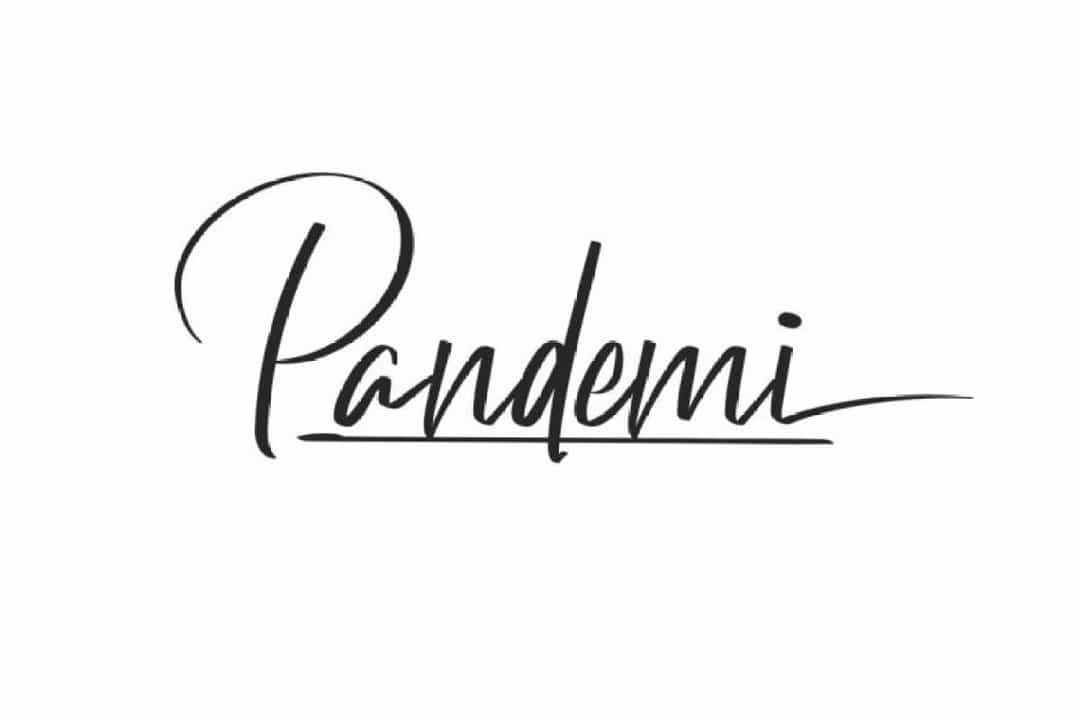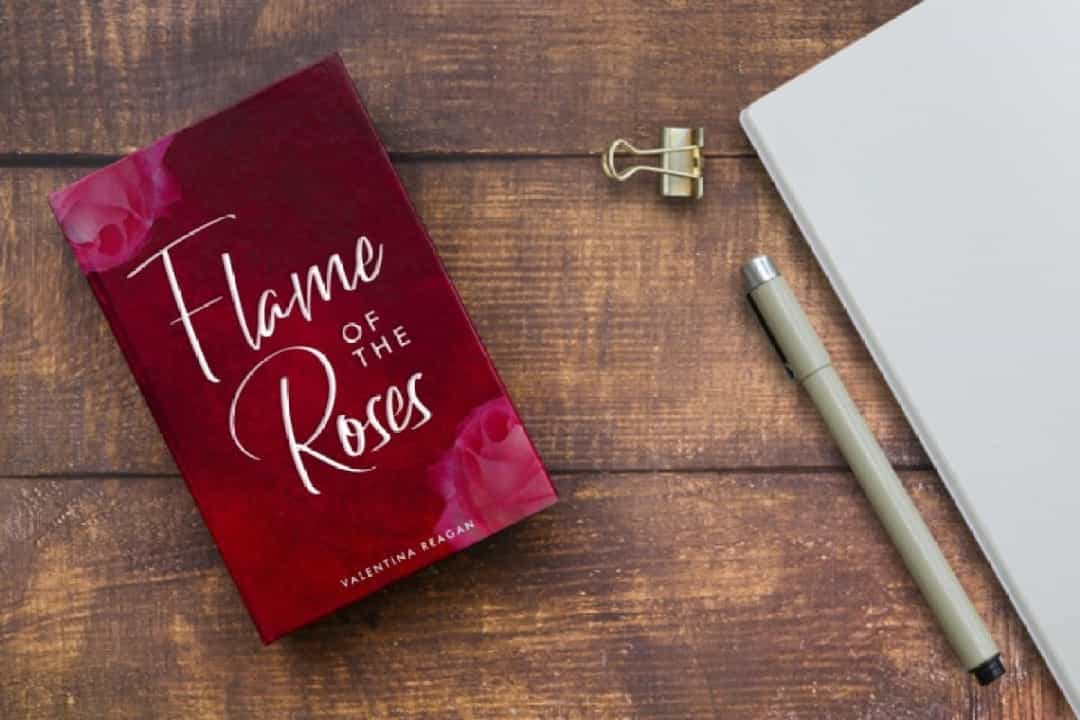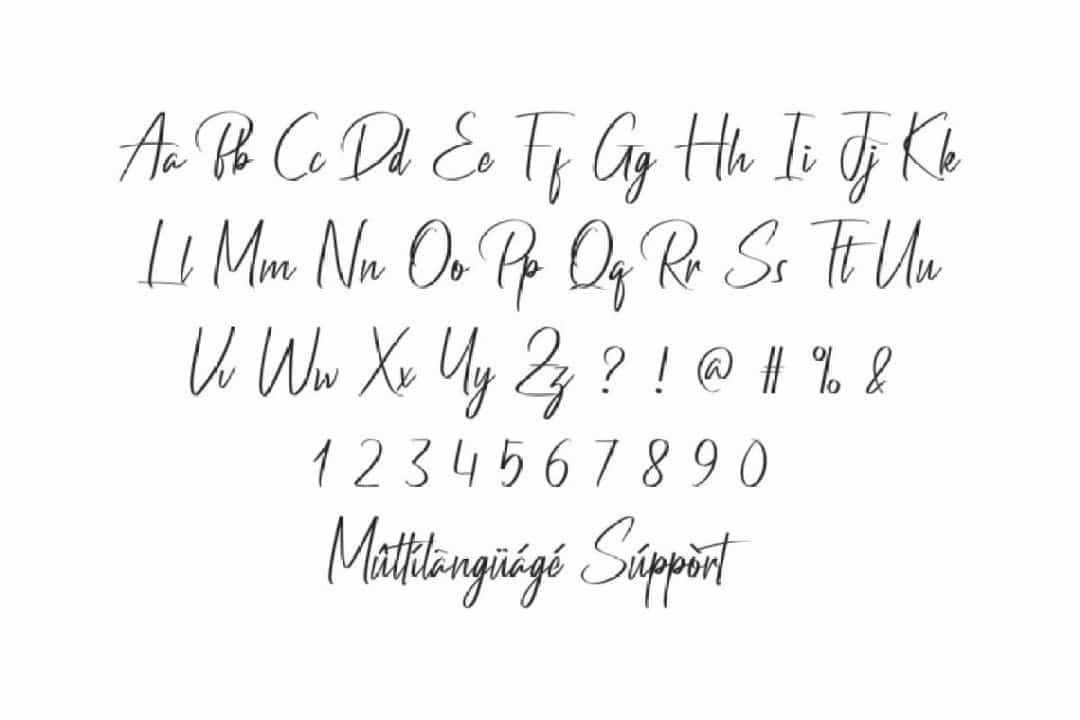
Pandemi is a beautiful handwritten fonts that was crafted with finesse for the use in any of your projects. Before using it in the creation of many designs, you will surely fall in love with its vintage look! This is due to the fact that PUA encoded to allow for easy access of all the characters and the strokes.